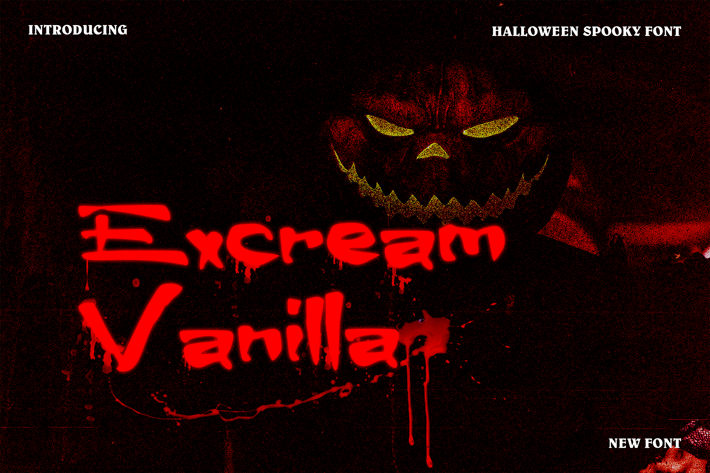
Excream Vanilla Halloween Font
ExcreamVanlla Halloween Font, is our new font and suitable for mockup or any work.
Great for
Sticker, Invitation Card, Brochure, etc.